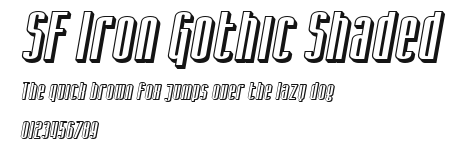
• Font Name: SF Iron Gothic Shaded
• Font Style: Oblique
• Full Font Name: SF Iron Gothic Shaded Oblique
About SF Iron Gothic Shaded.ttf
SF Iron Gothic Shaded.ttf is a modern, elegant sans-serif font designed for ultimate readability and visual harmony. Perfect for branding, headlines, web design, and print materials.